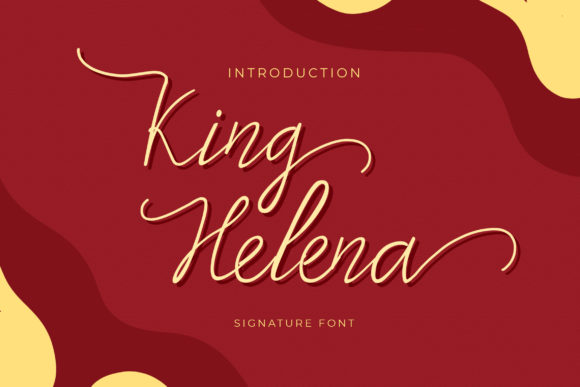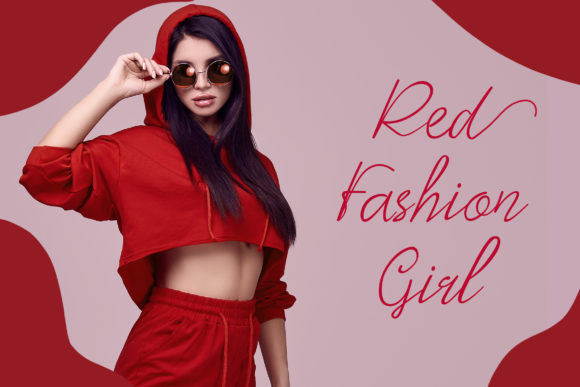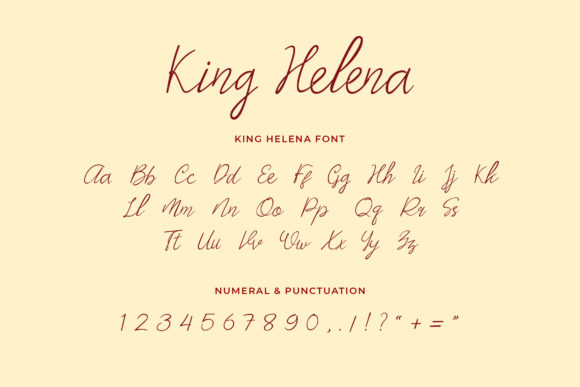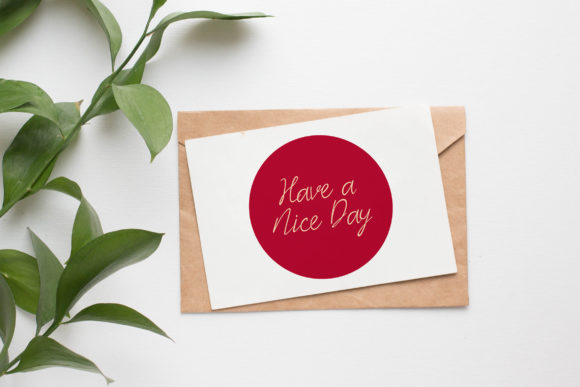
King Helena Font
About King Helena Font
King Helena is a charming and relaxed handwritten font that captures the essence of natural handwriting. With its effortless flow and unique letterforms, King Helena adds a touch of authenticity and beauty to your designs.
This font is an excellent choice for creating eye-catching logos, branding materials, and quotes. Its relaxed and natural style gives your designs a friendly and approachable feel, while the intricate details in each letter provide a beautiful touch. Whether you’re looking to create a logo that stands out or want to add a personal and handcrafted element to your branding, King Helena is a perfect choice.
The uniqueness of each letter in King Helena adds character and depth to your designs. The subtle variations and flowing curves create an organic and harmonious look, making your text feel more personal and inviting. It’s a font that can bring a sense of warmth and individuality to your design projects.
King Helena also offers versatility in its application. It can be used for various purposes, including social media graphics, packaging designs, headlines, and more. Its relaxed and natural style works well in both digital and print formats, allowing you to express your creativity across different platforms.
When using King Helena, consider the overall readability of your text, especially when using it for longer passages. Adjusting the size, spacing, and contrast can help ensure that your message is clear and legible while still capturing the charm and uniqueness of the font.
In summary, King Helena is a relaxed and beautiful handwritten font that adds a natural and unique touch to your designs. Whether you’re creating logos, branding materials, or quotes, this font will make your designs come alive with its authentic and captivating style. Enjoy the versatility and charm that King Helena brings to your creative projects.